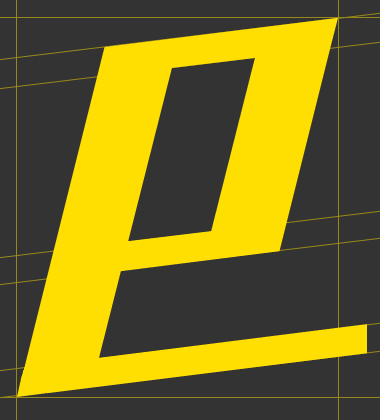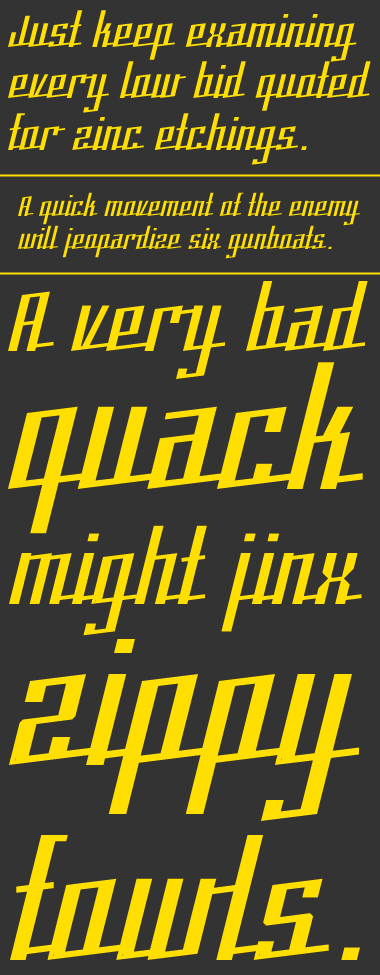
Emblazoned
by aphoria
• 1 x 1 filter. Nearly all angles are 1:8 for the horizontals and 1:4 for the verticals. 28 grid squares from the lowest point to the highest across the set. For reference, the lower case 'o' is 11 squares wide and 13 squares tall. Each character has a 1 or 2 block overlap on the right side to make the connectors touch the next character.
This is a masterpiece. Respect !
Maybe I should have made ​​the connections a little bit slimmer, so the letters are even more advantage. But that's just my personal opinion : )
EPIC! I am loving this entry, it truly does look Emblazoned! And those pangrams in the samples are from MyFonts, no?
@beate Good idea on the connections...maybe I can try on a clone sometime.
@winty5 I just found a big list of pangrams on Wikipedia and picked out a few.
Nice! I bet the kites were pretty useful in creating this. Looks like a winner: 10/10
Nice work , I love the italic in it
Excellence emblazoned on every sample. 10/10